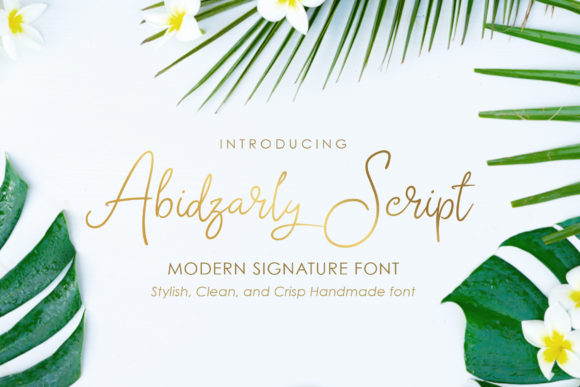
Introducing Abidzarly, the captivating script font that will ignite your creativity and leave a lasting impression. Crafted by the skilled artisans at rautanstudio, this font exudes elegance and sophistication with every stroke.
Unleash your imagination as Abidzarly transforms your words into vibrant masterpieces. Perfect for creating enchanting wedding invitations, captivating social media posts, or heartfelt letters, this font will add a touch of magic to any project. Its bold presence will command attention, while its intricate details will leave a lasting impact.
Abidzarly is not just another font; it's a gateway to a realm of emotions and expression. Let your imagination soar as you explore the endless possibilities that this versatile script offers. Join the countless others who have fallen in love with Abidzarly and elevate your creativity to new heights.